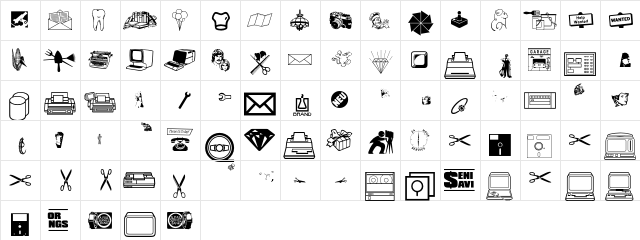
BusinessServices P02 Font Preview
BusinessServices P02
Design Context for BusinessServices Typeface
BusinessServices is a composed and adaptable typeface that performs quietly and consistently across a wide range of design contexts.